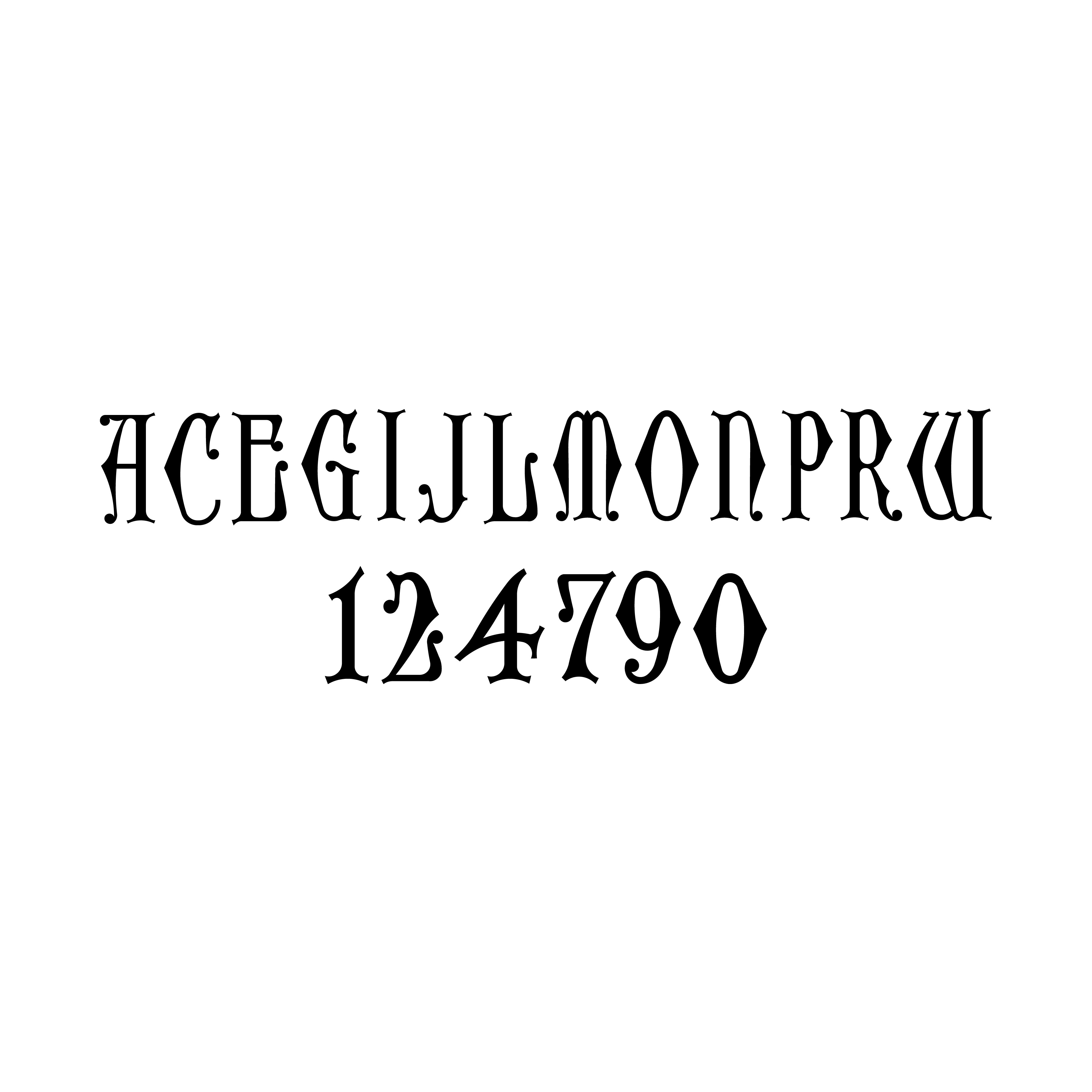
Incomplete Font Help
I have this font called UnicalMC but it is incomplete. *See image.
incomplete font
A bit more information, if you are interested: This looks like it was based on the Monu-Cad version of a Lombardic/Uncial lettering style published in the American Monument Association book, Symbols,  published in 1982. Creative Premier Designs out of Elberton also created a TTF version at one point.